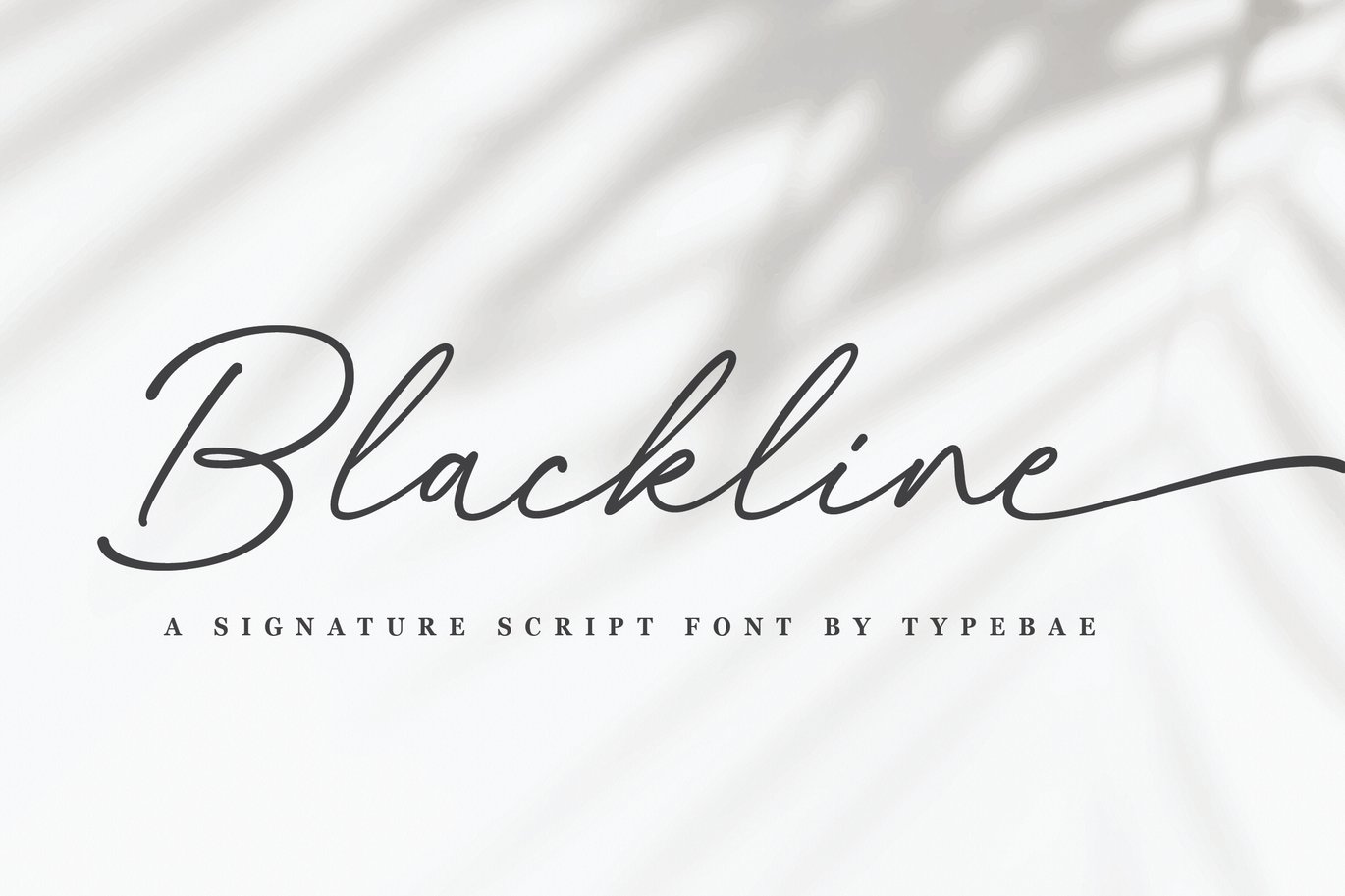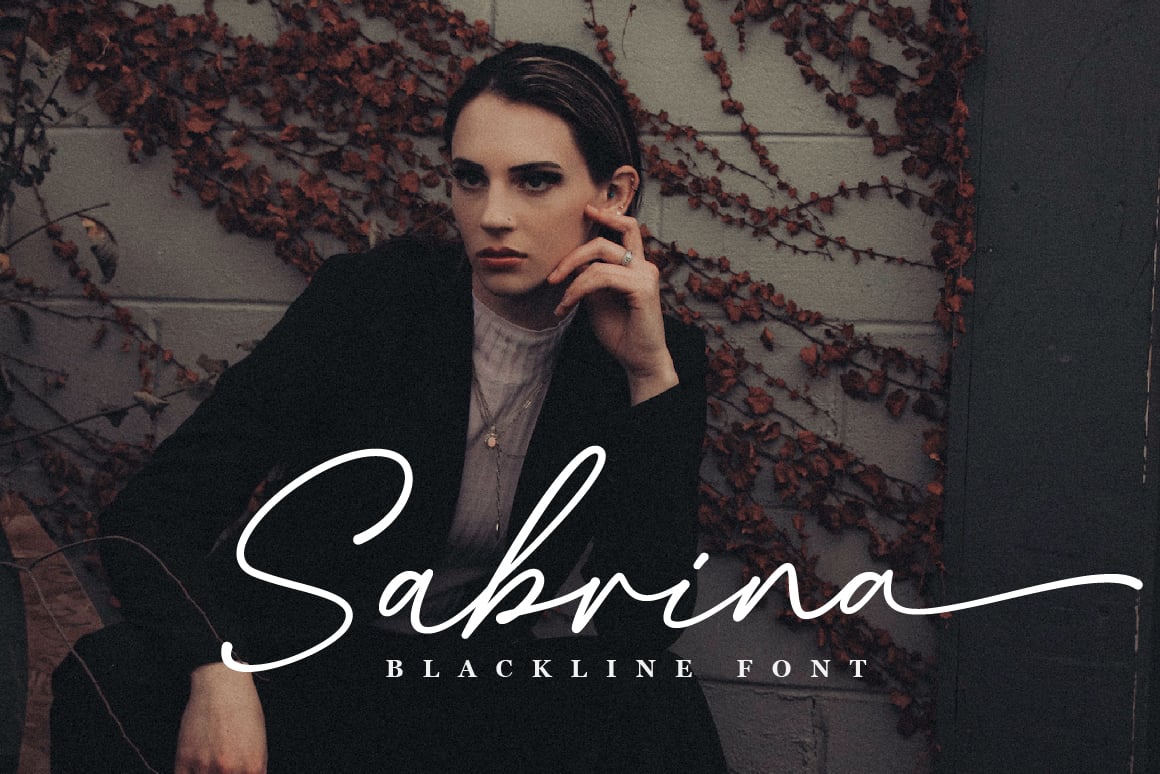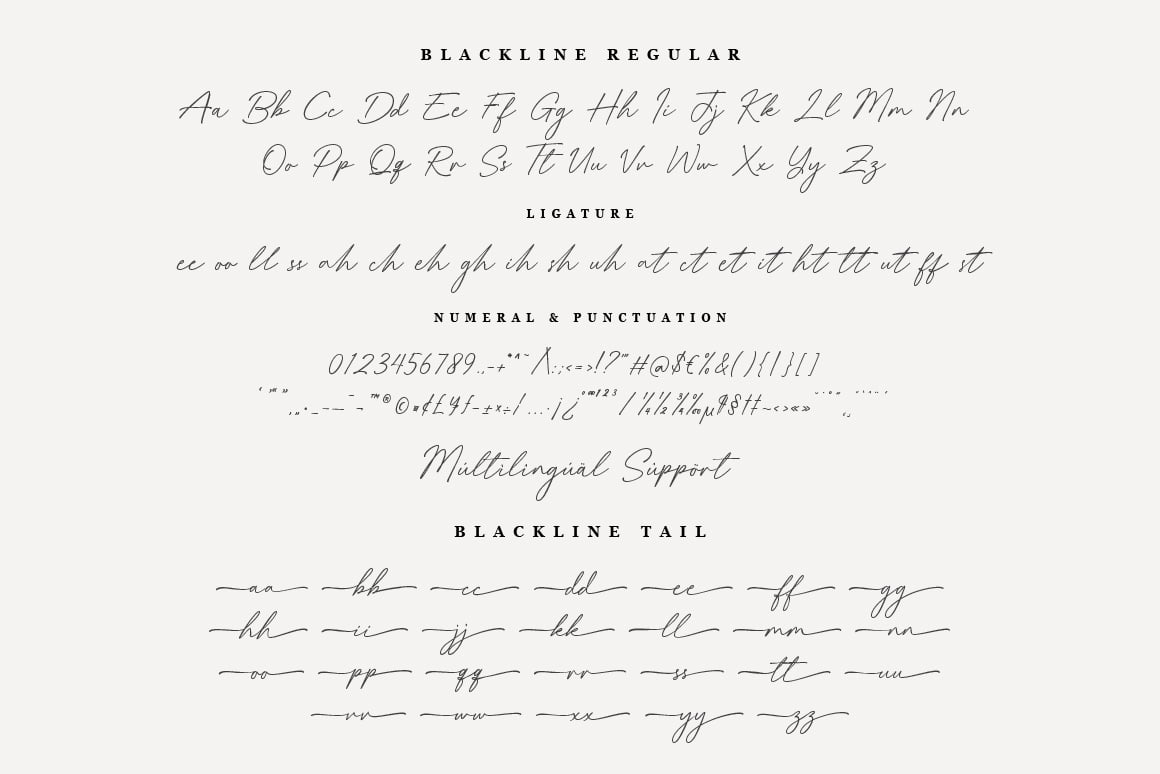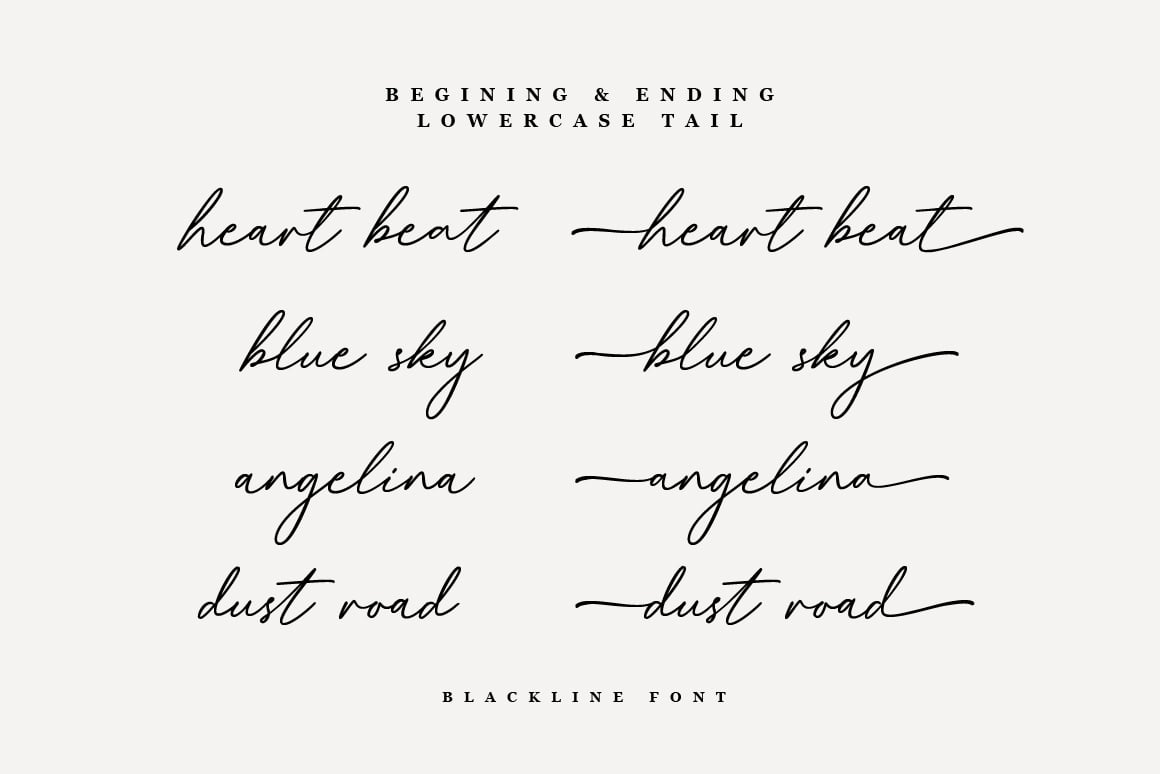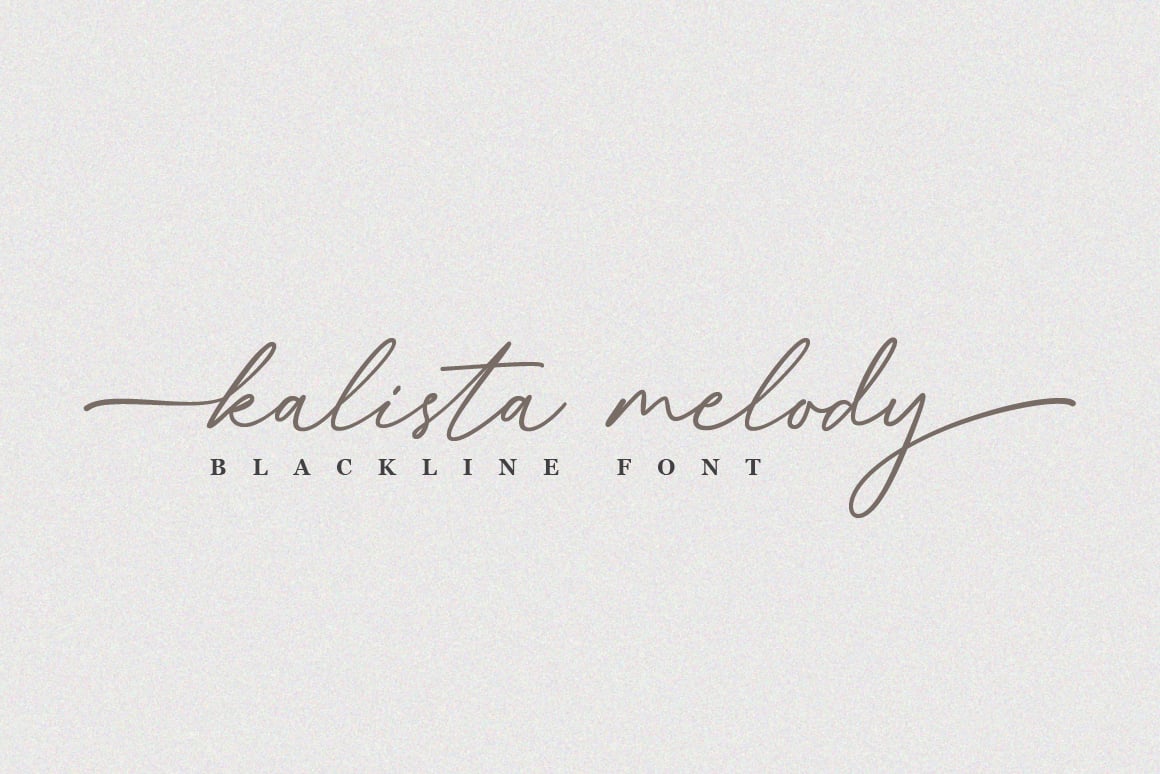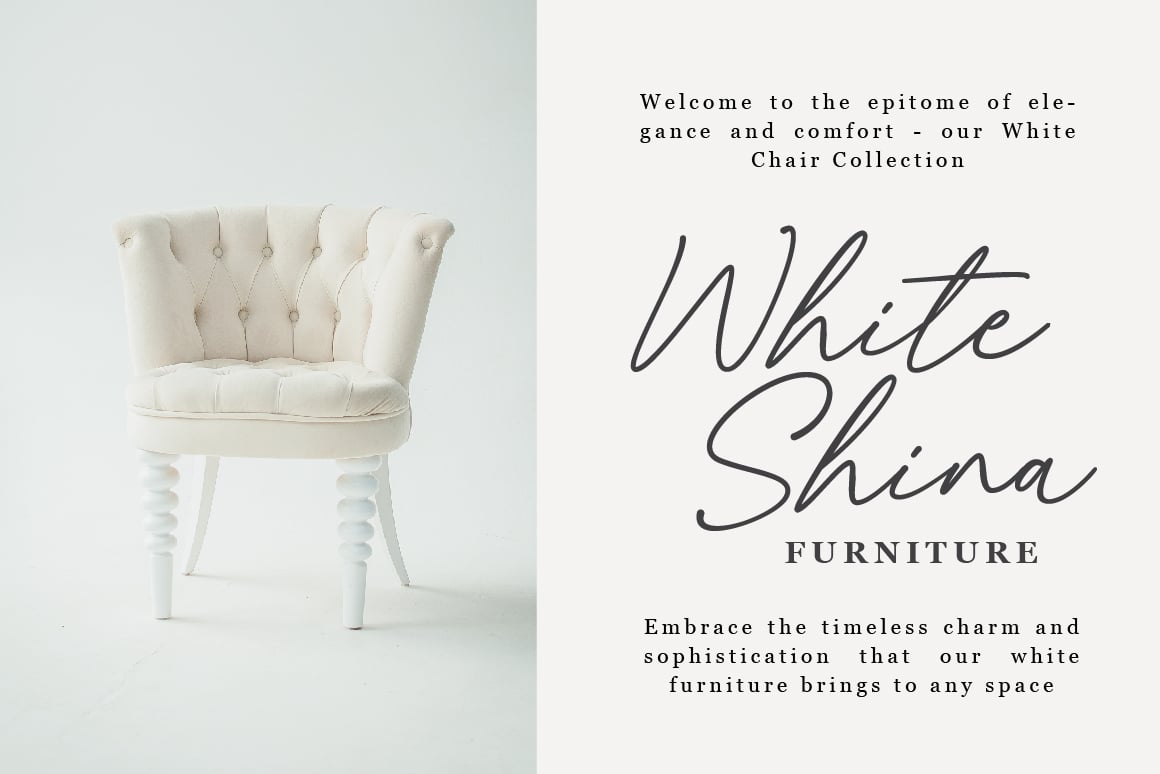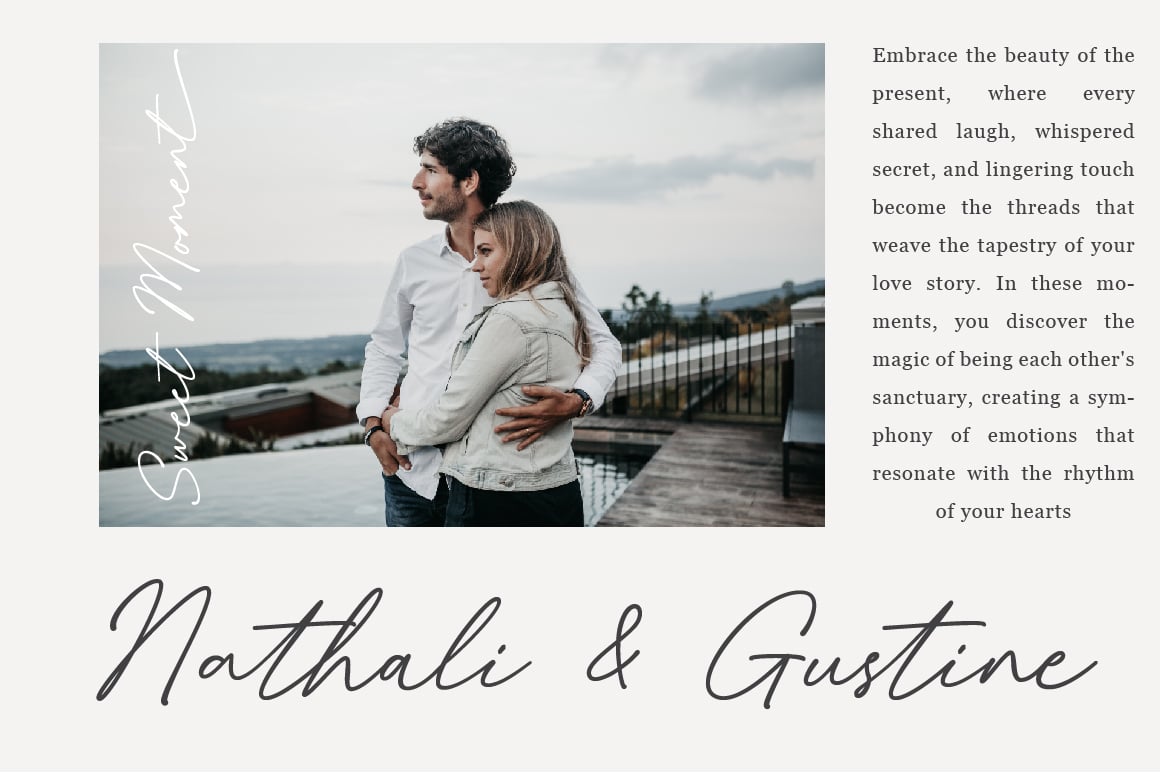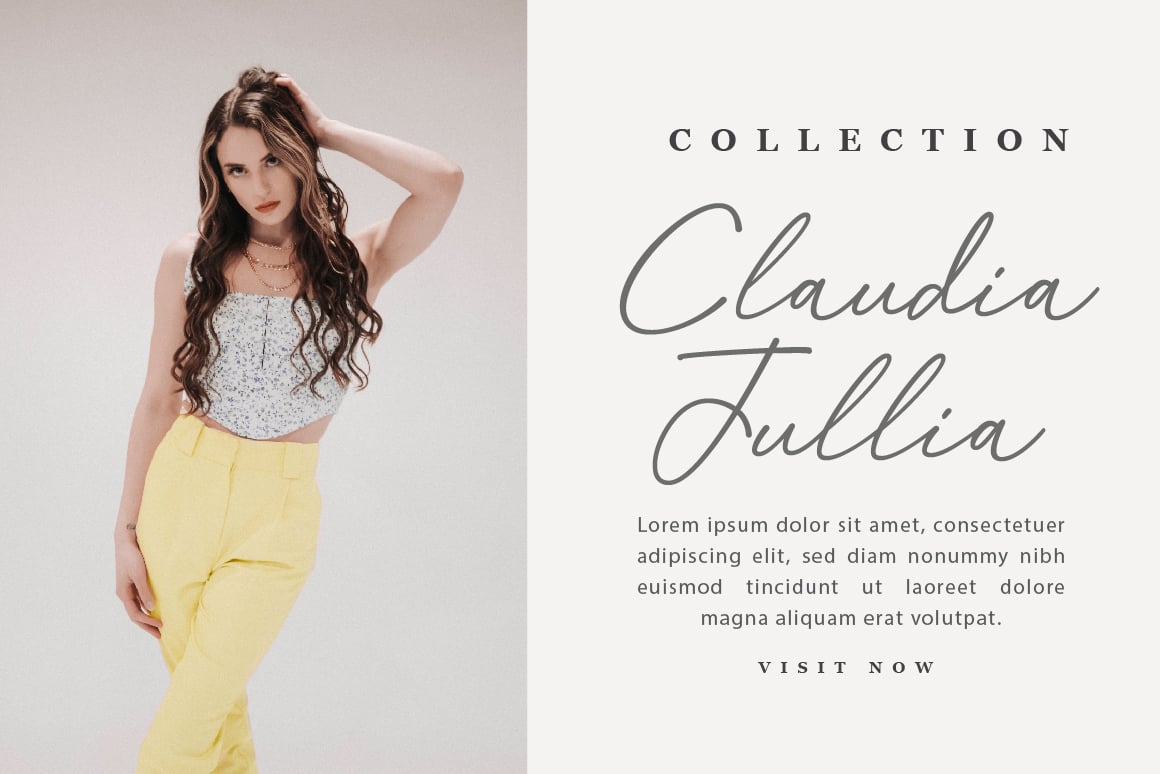
Backline – Chic Signature Script Font
Blackline Font is a chic handwritten signature script font that features elegant swashes at the beginning and end of each letter. It offers ligatures, allowing certain letter combinations to flow seamlessly for a more natural and authentic look. This font is also designed to support multiple languages, making it versatile and suitable for various design projects.
To use beginning and ending swashes (tail), you don’t need to use software that supports opentype, because we have made it separately so it’s very easy to use.
Feature: Ligature, Stylistic Alternate, Multilingual and PUA encoded.